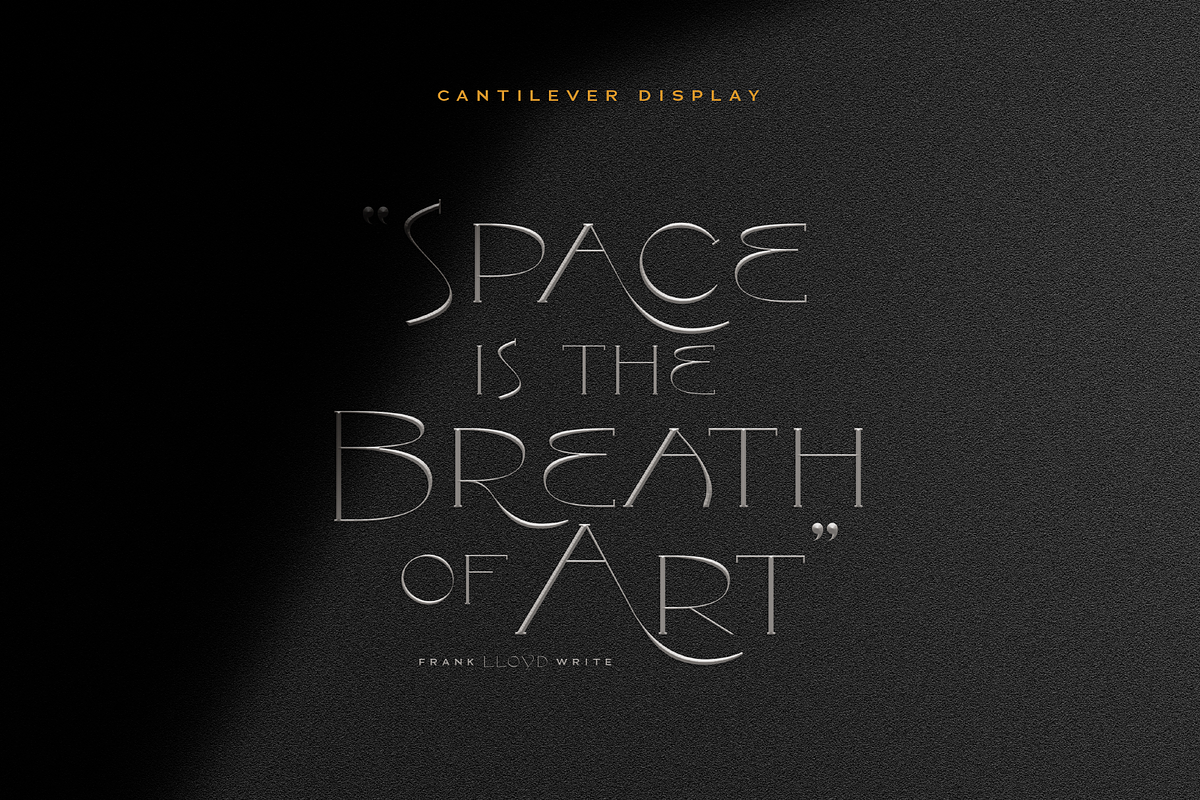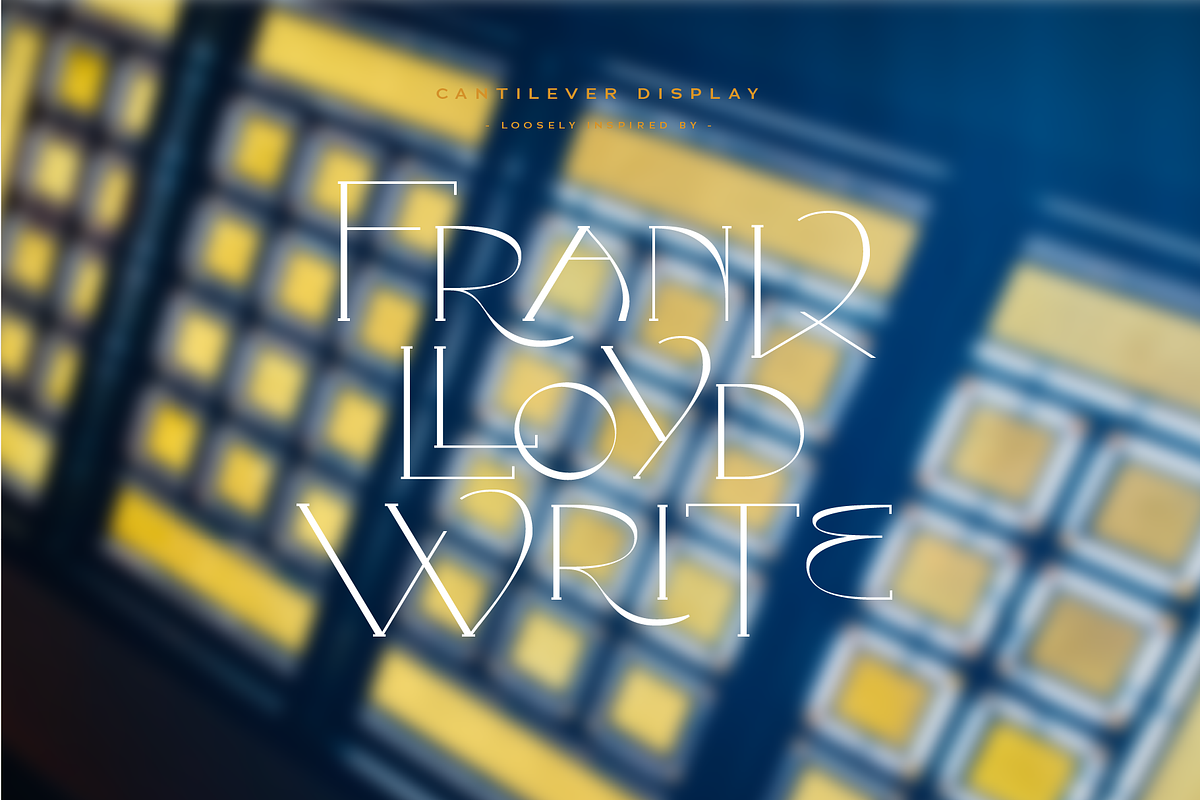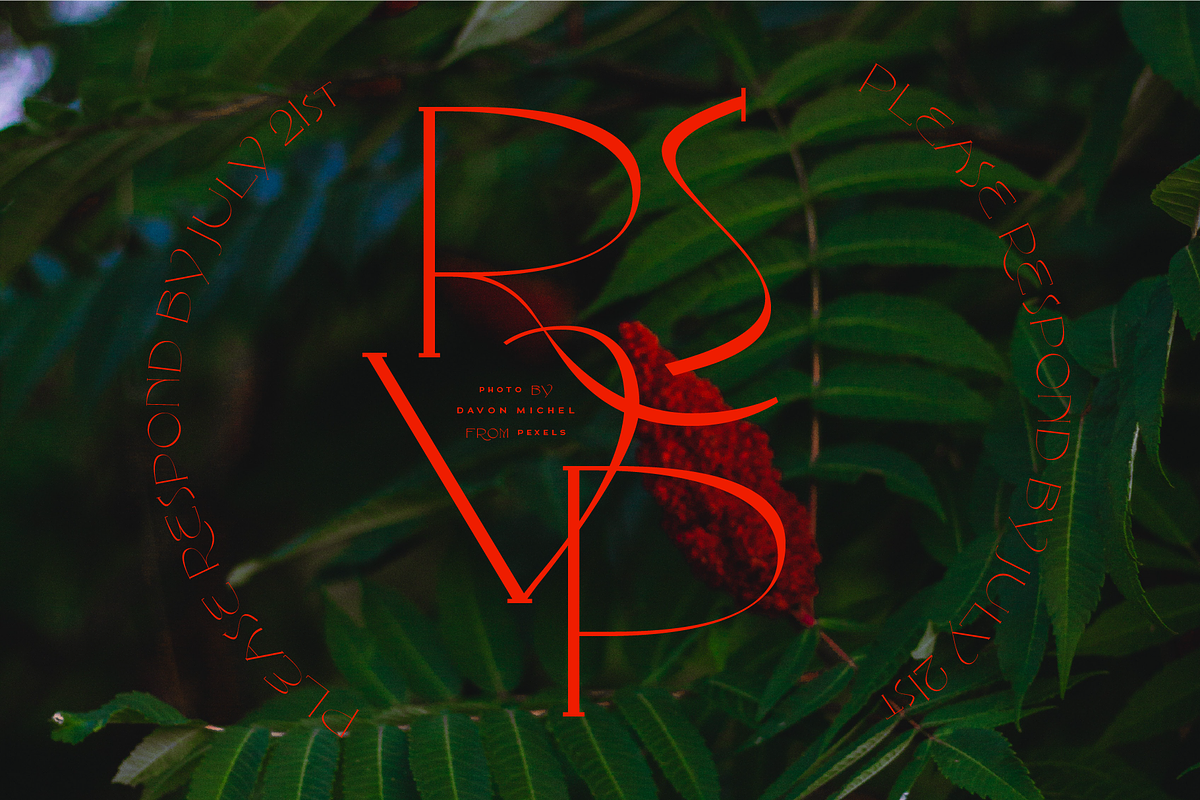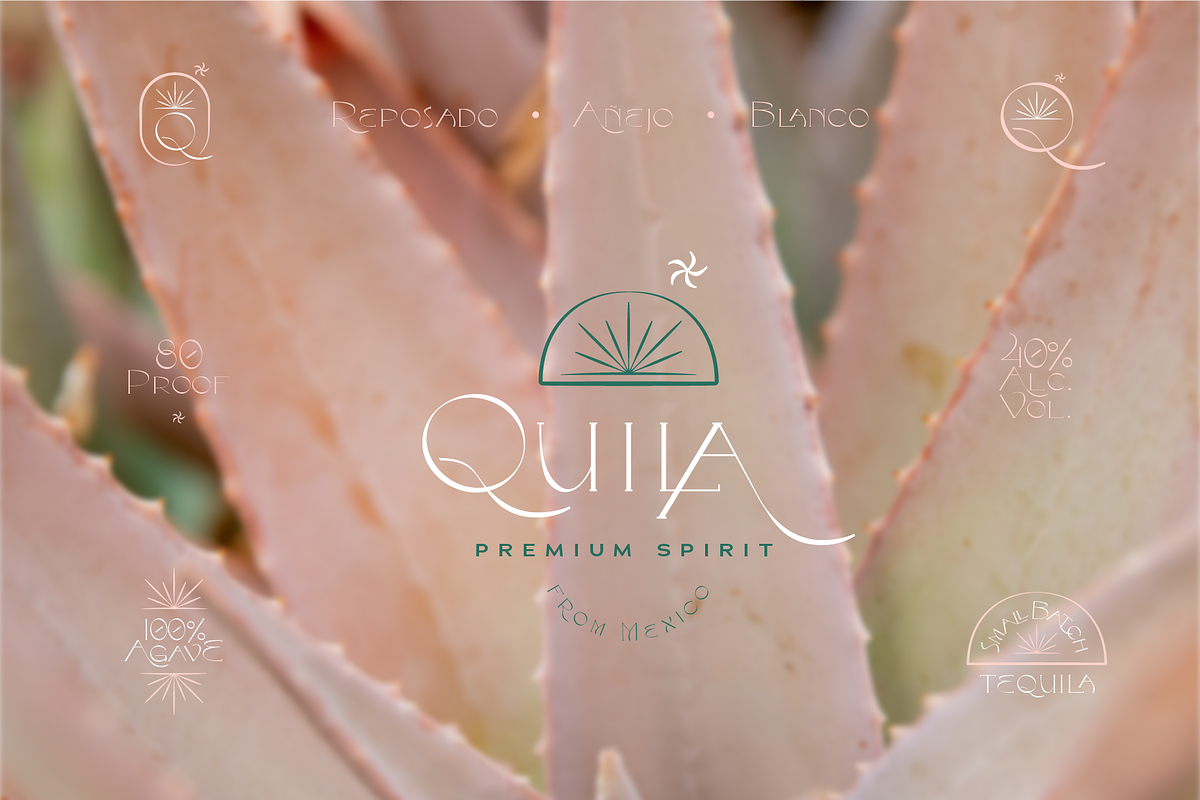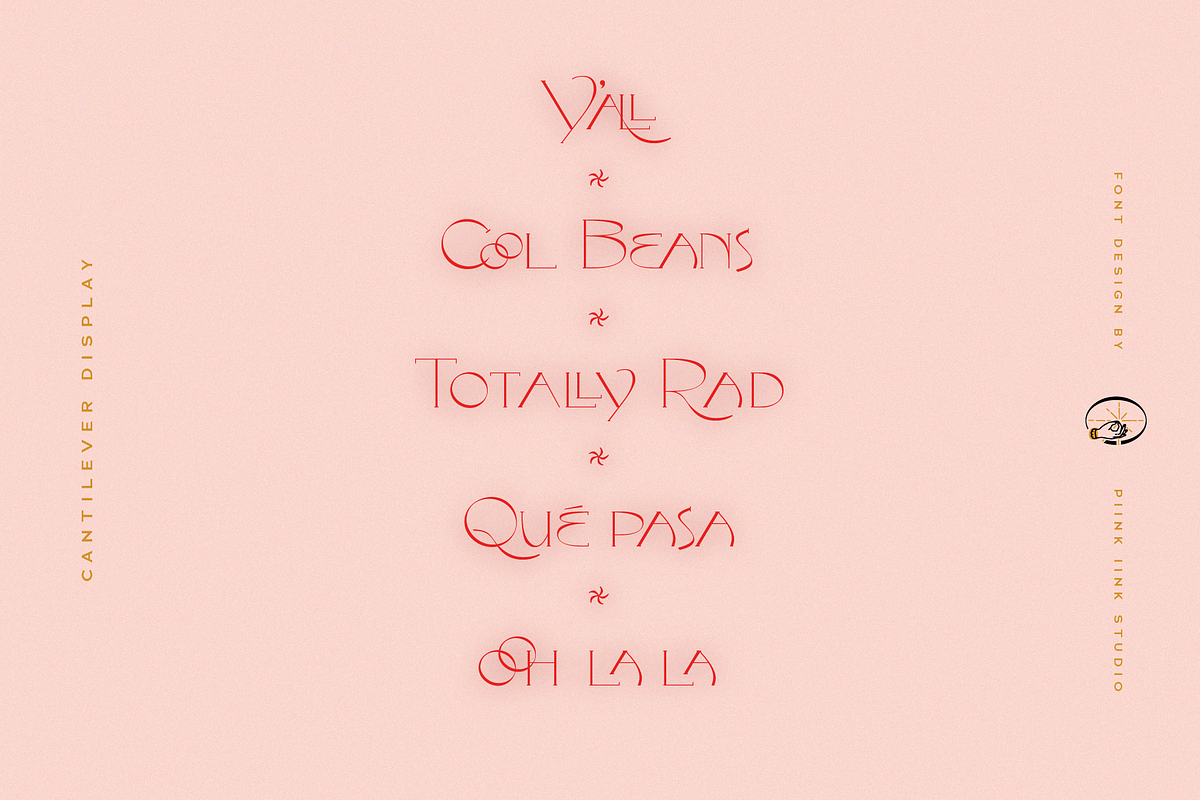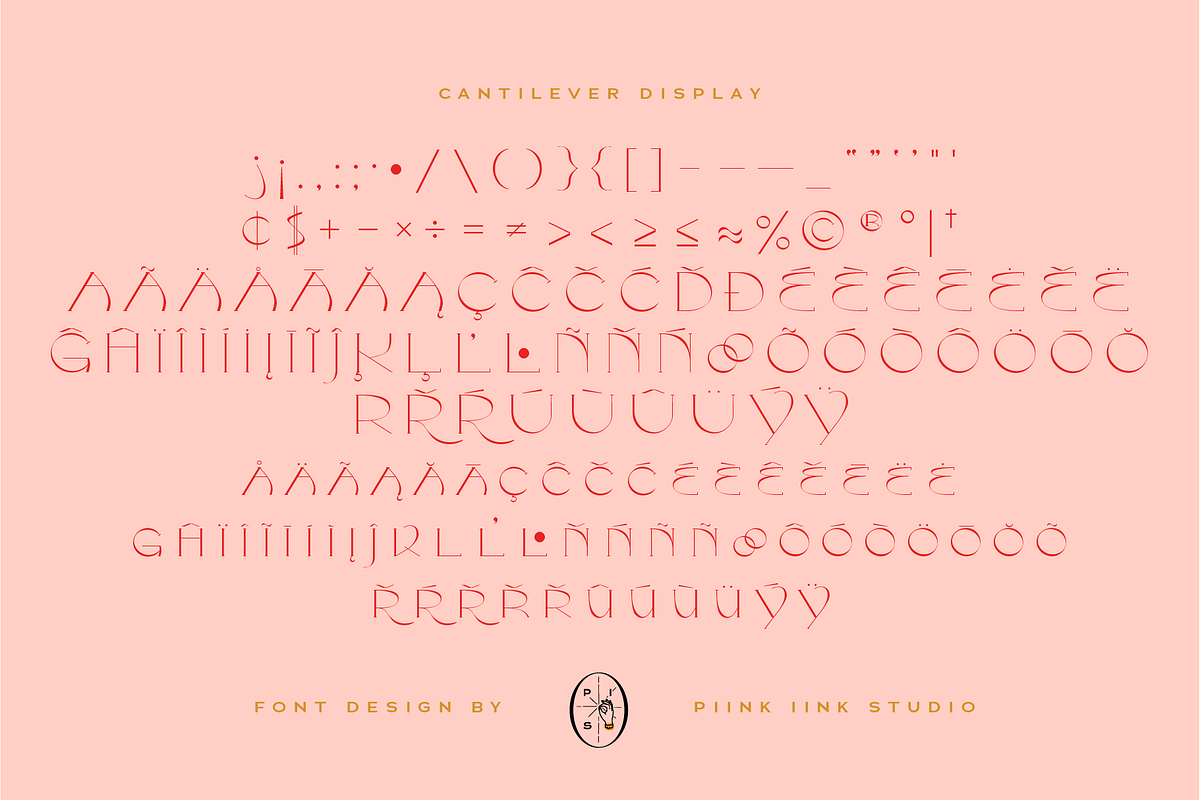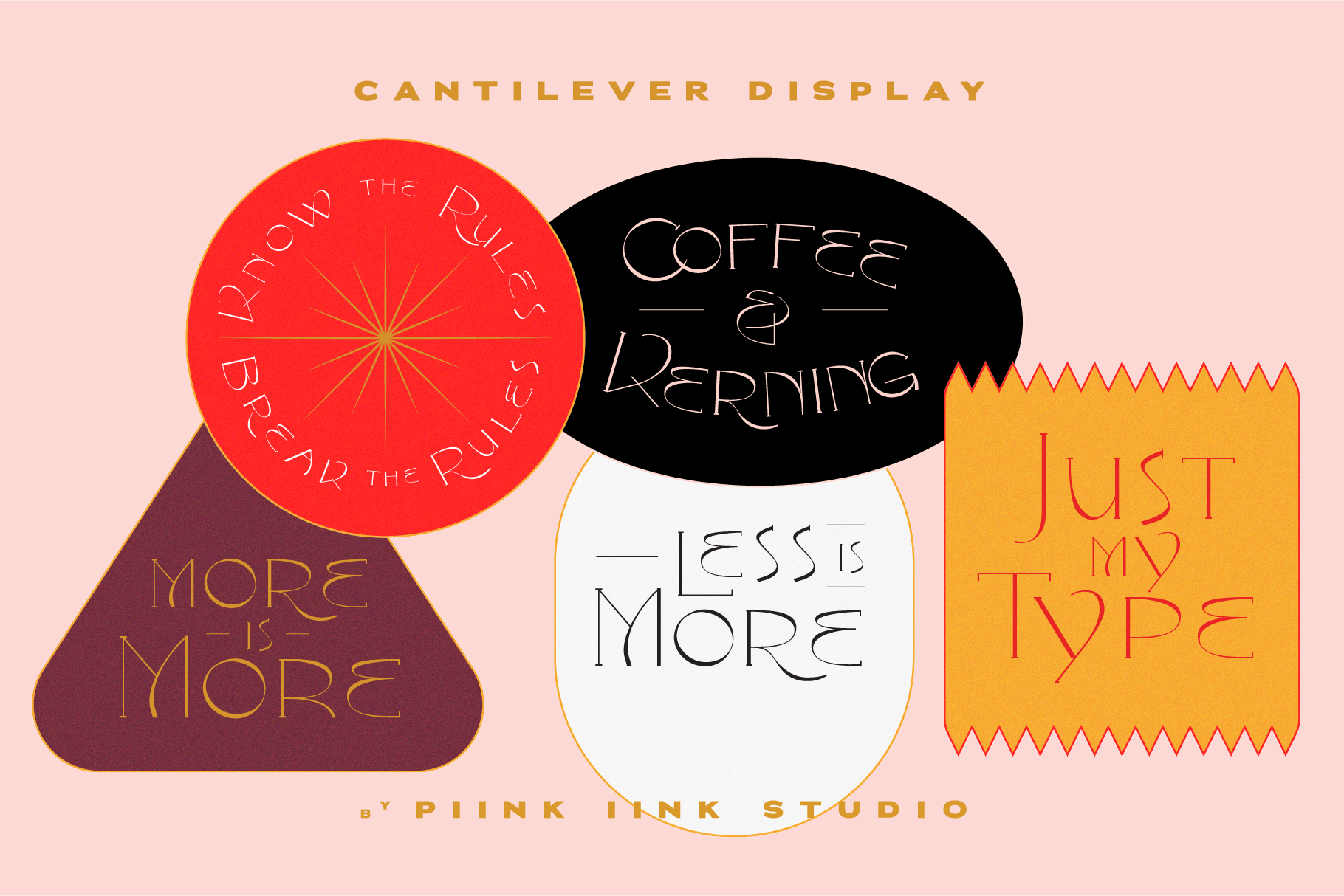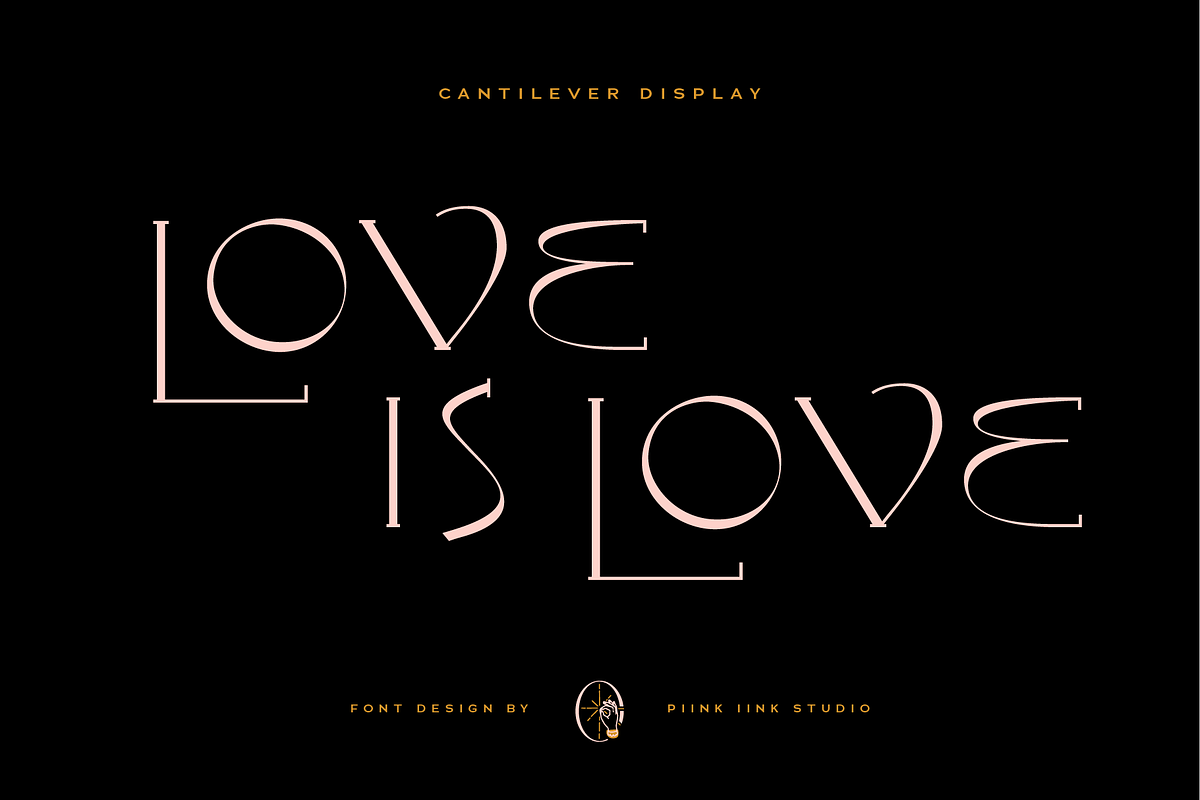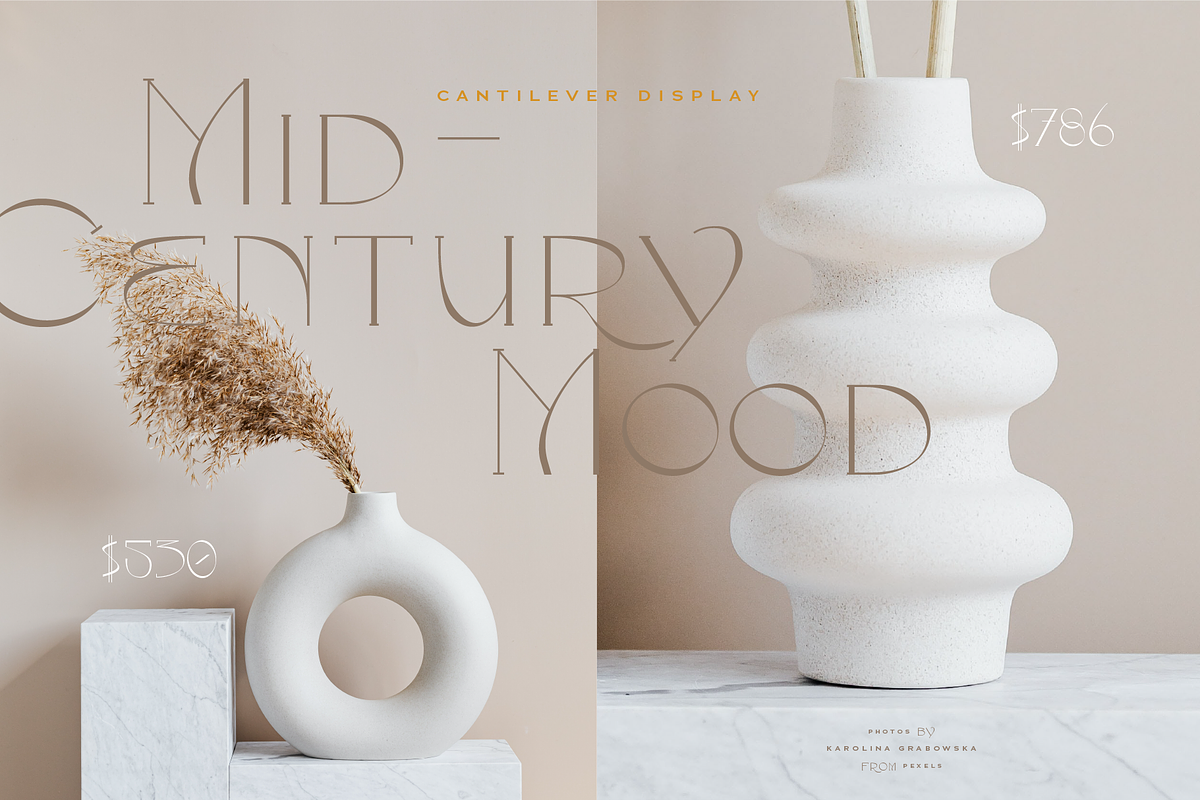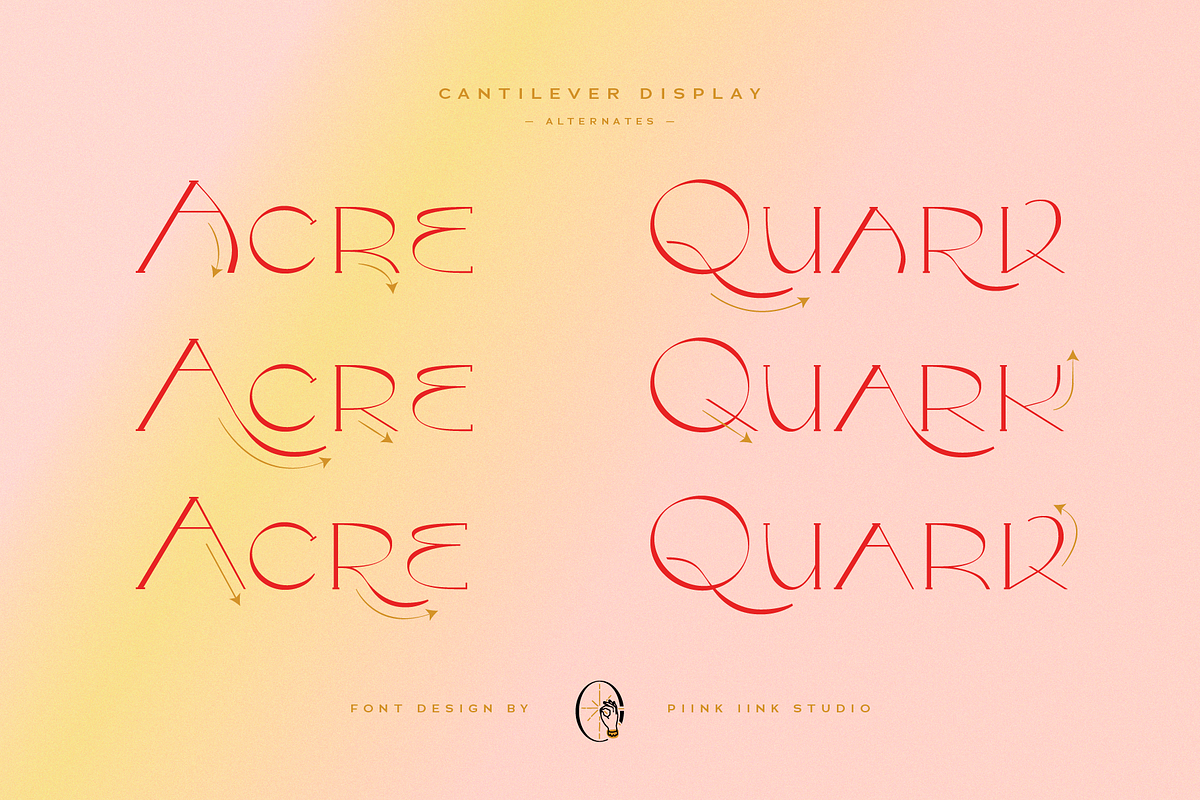
Cantilever Display Font
Loosely based on Frank Lloyd Write and Mid-Century typography. Cantilever Display is a serif with flair. Includes .woff, .tff, and .otf files